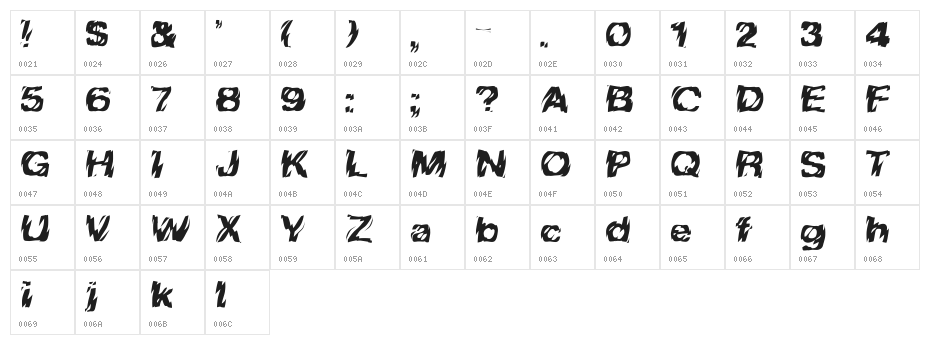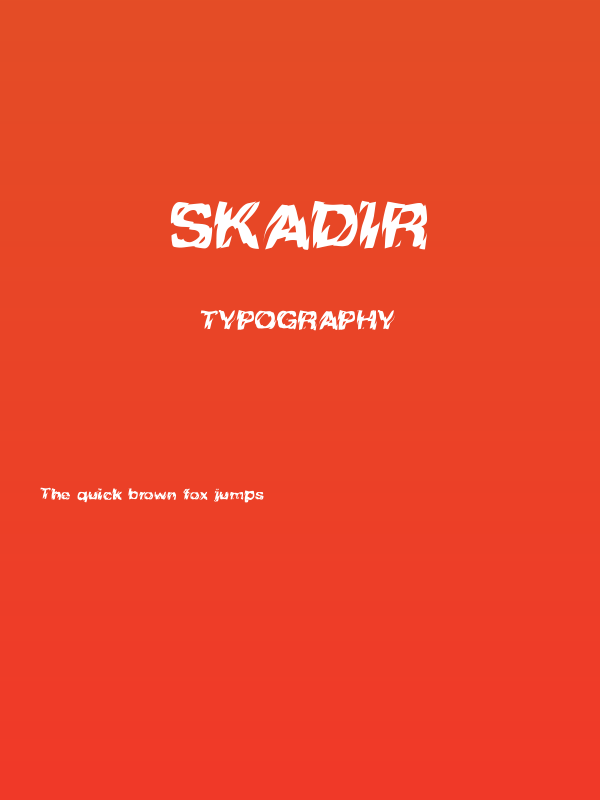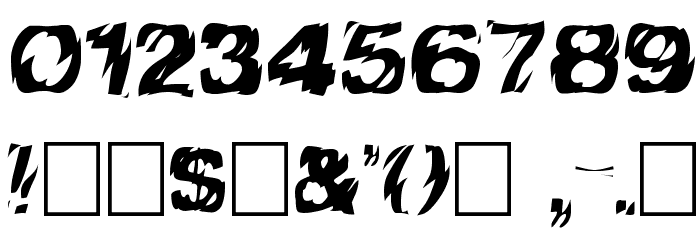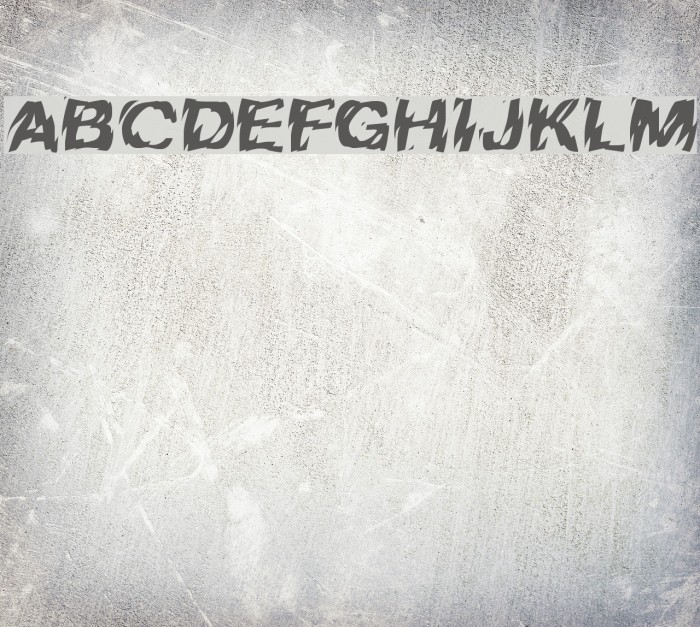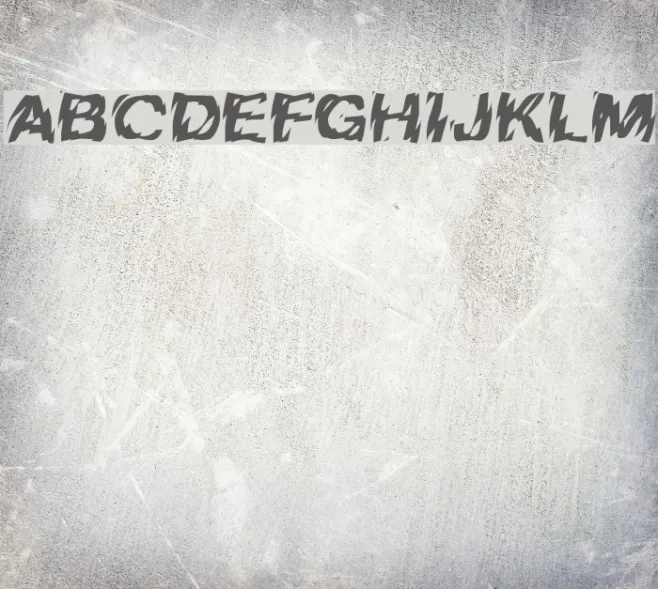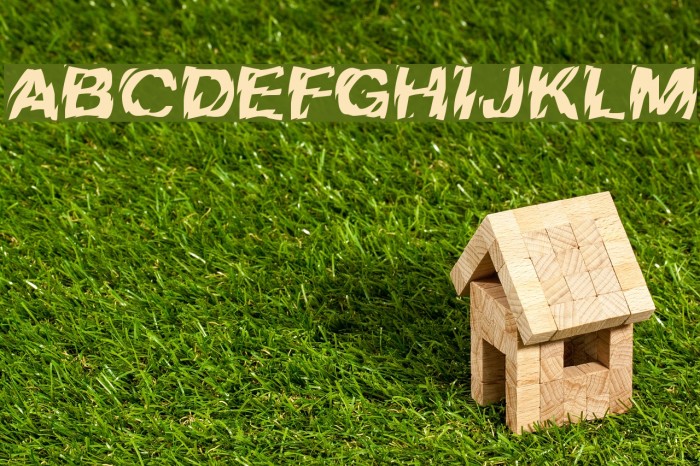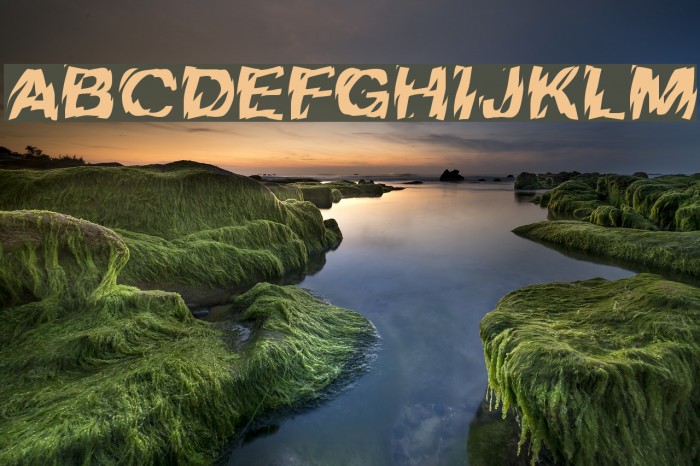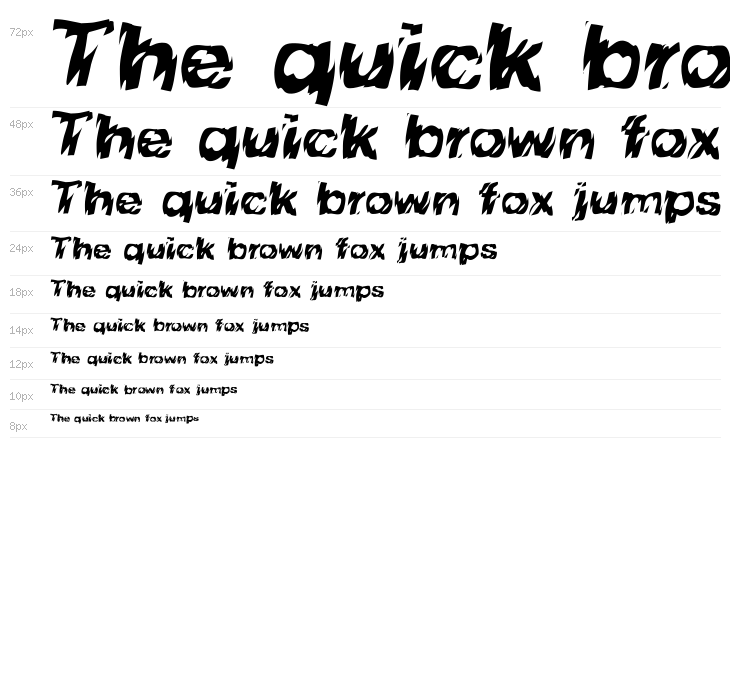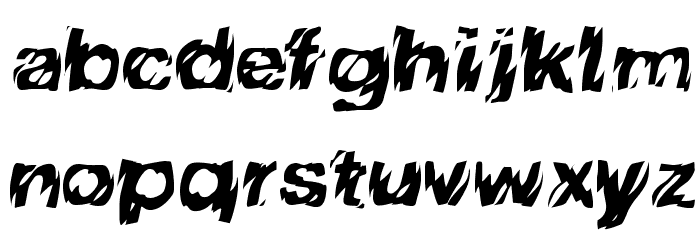
Skadir Font
Skadir Description
This font features a bold and dynamic style with a distressed, grunge-like appearance. The characters are heavily stylized, with irregular edges and a sense of movement, giving it an energetic and rebellious feel. The uppercase and lowercase letters maintain a consistent design, while the numbers and special characters follow the same aesthetic, ensuring uniformity across all glyphs. The font's unique texture and bold presence make it stand out, ideal for projects that require a strong visual impact.
| Proposed Projects | Ideal for music album covers, edgy posters, streetwear branding, and any project seeking a rebellious or energetic vibe. |